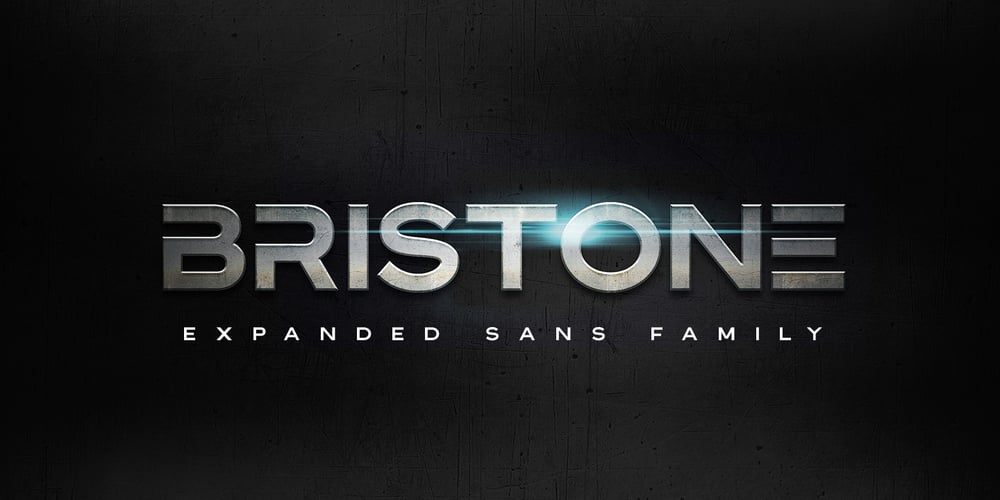
Bristone Font Family was designed by Abdul Malik Wisnu and published by Almarkha Type. Bristone contains 6 styles and family package options. Hello Everyone, Introduce our new collection, Bristone – Expanded Sans Family famous logos of Technology and brands that have very strong characteristics, Bristone has 6 Fonts that allow you to get a job with satisfying results. very suitable for posters, t-shirt, packaging, branding, logotype and more.Bristone font with strong and challenging nuances. very suitable for the title, typography, clothes, Poster, magazines, brochures, packaging,Websites and much more for your design needs, making your designs more modern and professional